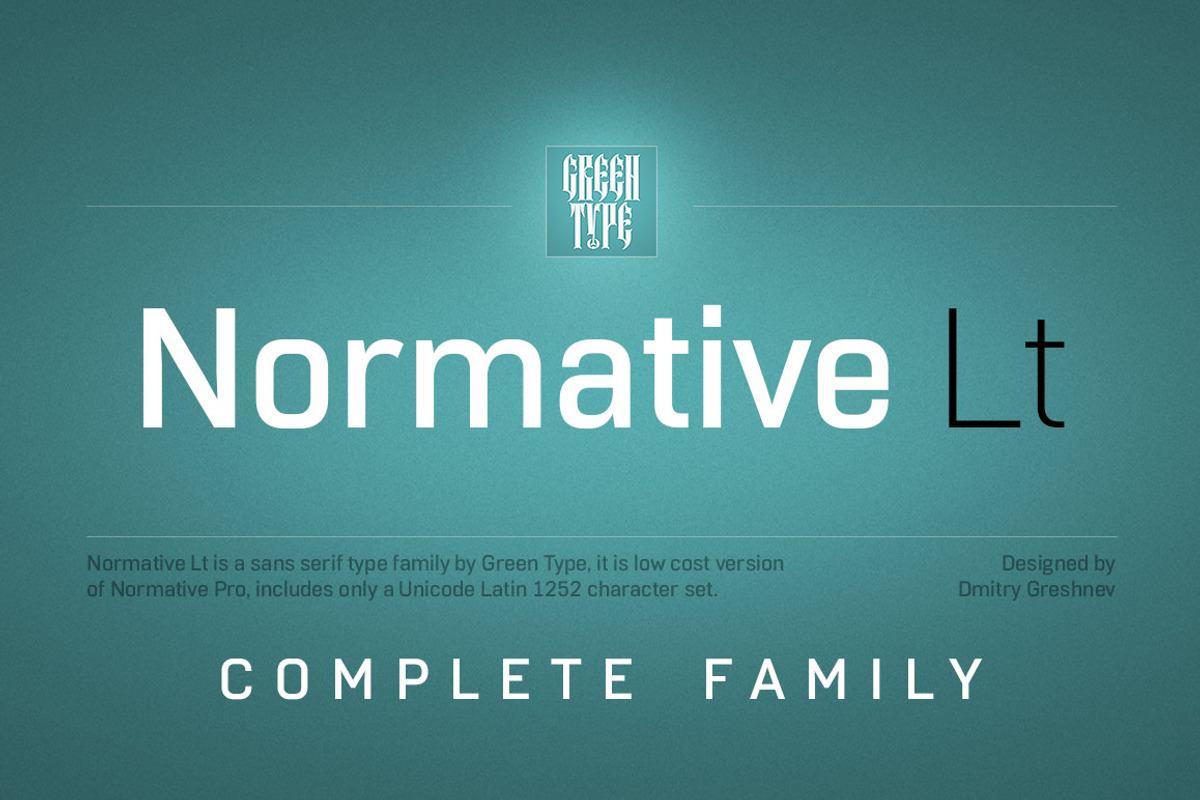
Normative Lt – 12 fonts Free Download
Normative Lt – 12 Fonts Free Download is a modern sans-serif font family designed for versatility, clarity, and professional use. With 12 distinct styles ranging from Thin to Bold, this typeface is perfect for branding, corporate design, user interfaces, editorial layouts, and web projects requiring clean, minimal typography.
Its geometric structure and balanced spacing make Normative Lt an excellent choice for both headlines and body text. Whether you're building a brand identity or crafting a polished presentation, this font family adapts seamlessly across digital and print media.